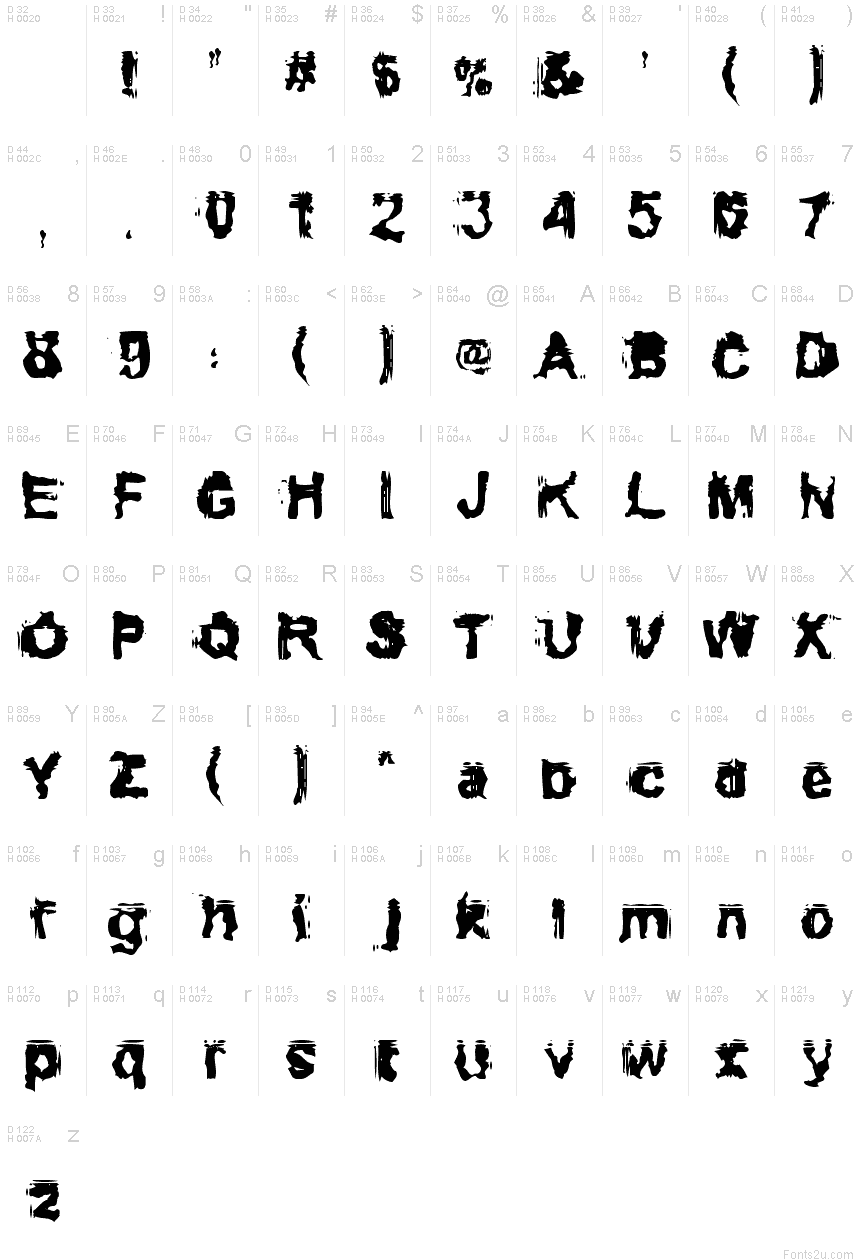
Conformyst
Conformyst font by Brad Barham of Clearlight Fonts is a free distorted grunge display typeface. Its jagged silhouettes look scraped from rough concrete, with inky smears and torn edges that feel more scratched than drawn. Letters pulse with uneven weight and warped shapes, giving everything a raw, unstable energy while still staying legible at larger sizes.
Using Conformyst, you can push horror posters, metal band logos, game titles, zines, Halloween flyers, and edgy album covers into full-on chaos. This free font thrives when it’s huge and loud; let it shout in your headlines and pair it with a clean, narrow sans serif for supporting text so the wild texture really stands out.